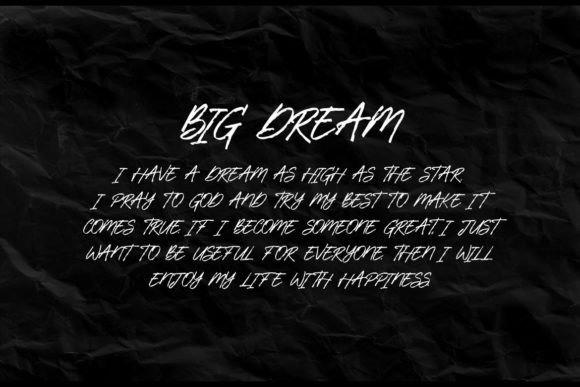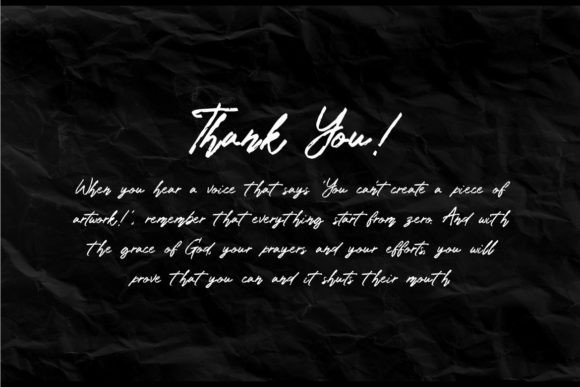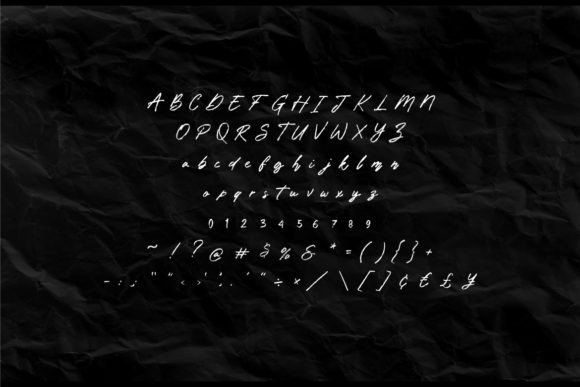
Introduction to Signature Gon Font
Have you ever found yourself staring at a blank canvas, wondering how to bring your creative vision to life? That’s where the right design resource comes in. As a designer, you know the importance of having a high-quality font that sets the tone for your project. That’s why I’m excited to share with you the Signature Gon Font, a modern and trendy handwritten font that’s perfect for adding a personal touch to your creative projects.
With its unique and stylish design, the Signature Gon Font is a valuable addition to any designer’s toolkit. Not only is it free to download, but it also offers a transparent background, making it easy to use and customize to your needs. Whether you’re working on a branding project, a social media campaign, or a blog post, this font is sure to elevate your design and leave a lasting impression.
Key Features of Signature Gon Font
- Unique, hand-drawn design with a high-quality feel, perfect for creative projects.
- Includes transparent background option, allowing for seamless integration into various design elements.
- Perfect for use in graphic design, digital art, and other creative projects where a distinctive, handwritten font is desired.
- High-resolution design, suitable for use in large-scale applications, such as billboards and signage.
Honest Review: Signature Gon Font
I recently had the chance to work with the Signature Gon Font, and I must say, it’s a real game-changer for any creative project. With a free download option, designers can access this high-quality font without breaking the bank.
- Unique and stylish design aesthetic
- High-quality typography that stands out in any design
- Transparent background makes it easy to customize
- Comes in a variety of weights and styles for added versatility
- No clear instructions for optimizing font for smaller screens
- May require some tweaking to get the desired look in certain design contexts
Overall, the Signature Gon Font is an excellent design resource that can elevate any creative project. While it may have some limitations, its unique style and high-quality typography make it well worth the download. I’m excited to see how it performs in future design projects.
Tips for Getting the Most Out of Signature Gon Font
When using Signature Gon Font, consider using a transparent background to create a seamless design. You can also experiment with different font sizes and colors to add depth and visual interest to your creative project.
Signature Gon Font is a versatile design resource that can be used in a variety of creative projects, including logos, social media graphics, and business cards. It’s also a great choice for designers who want a high-quality font with a unique aesthetic.